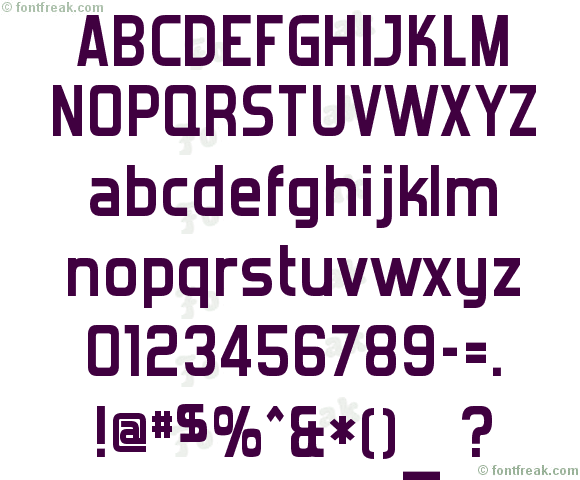
About Forgotten Futurist
The Forgotten Futurist font, designed by Ray Larabie, is a striking display typeface that embodies a unique blend of boldness and character. This sans-serif font offers a modern aesthetic with its clean lines and geometric forms, making it an excellent choice for a variety of creative projects. The stroke weight is consistent, providing a solid presence while allowing for excellent legibility. The overall spacing is well-balanced, ensuring that each character stands out without compromising readability. This font’s design is characterized by its slightly condensed letterforms and subtle geometric nuances, which evoke a sense of forward-thinking and innovation.
Best suited for impactful visual communication, the Forgotten Futurist font excels in use cases such as movie posters, where its bold nature can capture attention and convey a sense of drama. It is also perfect for branding materials, particularly for tech startups looking to communicate a modern identity. Additionally, this font can enhance restaurant menus, giving a contemporary flair that complements avant-garde dining experiences, and it can serve well in graphic design projects that require a futuristic touch.